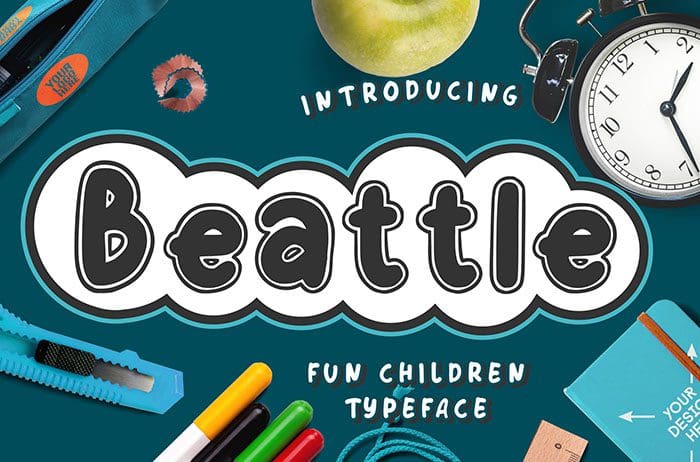
Beattle Display Font
Beattle is a fun monoline Display Font which suitable to use for children related occasion. Beattle is perfect for product designs, labels, and more. Thanks to Creatype Studio for sharing this font! Take a look at this portfolio for more of his stunning fonts.